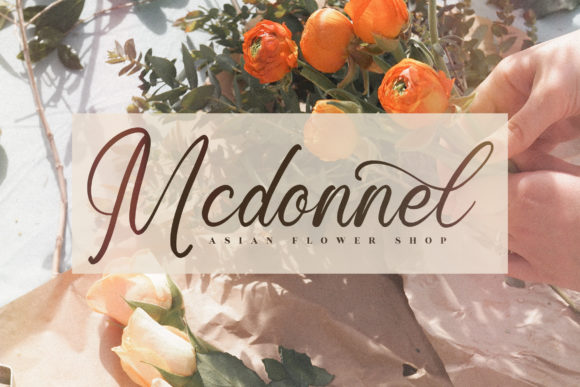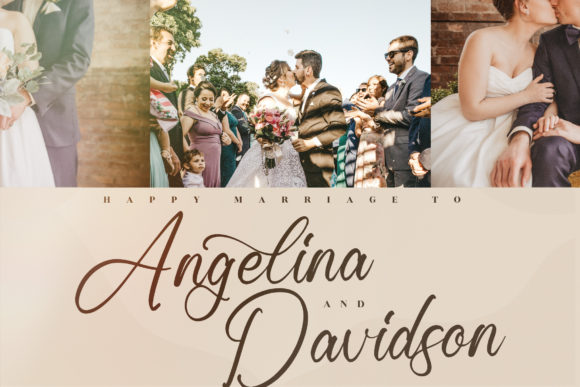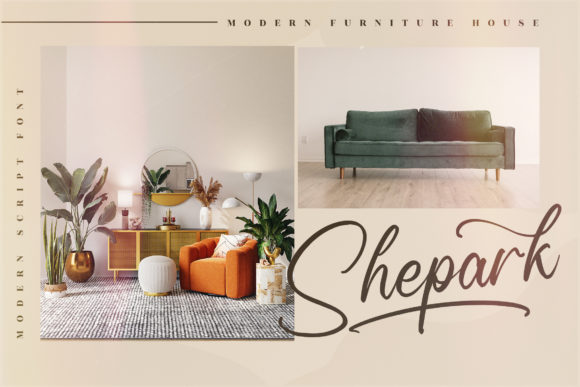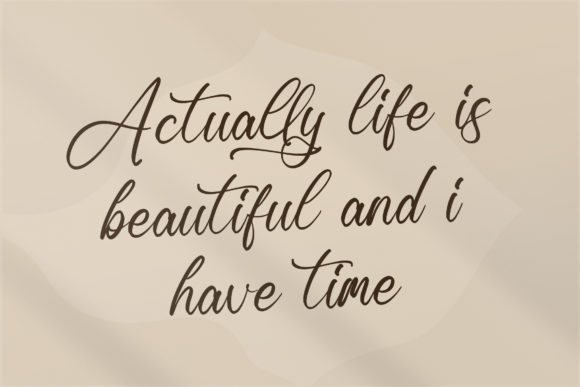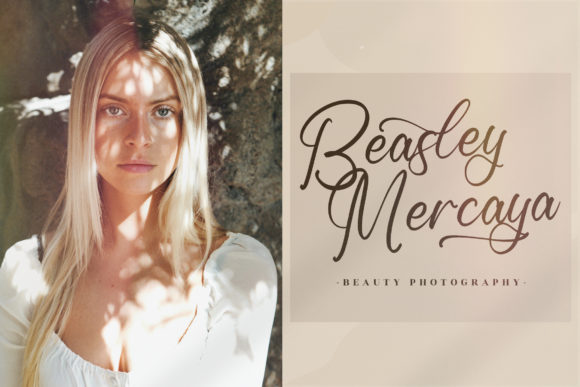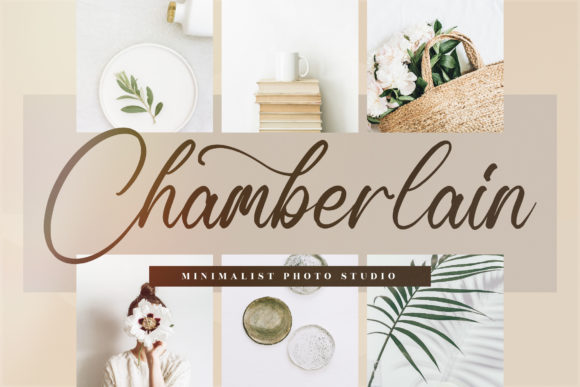
Introduction to Ronald Mendoya Font
Ronald Mendoya is a vintage and mystical script font.
| 👤 Author | Glorytype Studio |
It has a whimsical style and it will undoubtedly immerse your designs into a magical world This font is PUA encoded which means you can access all glyphs and swashes with ease.